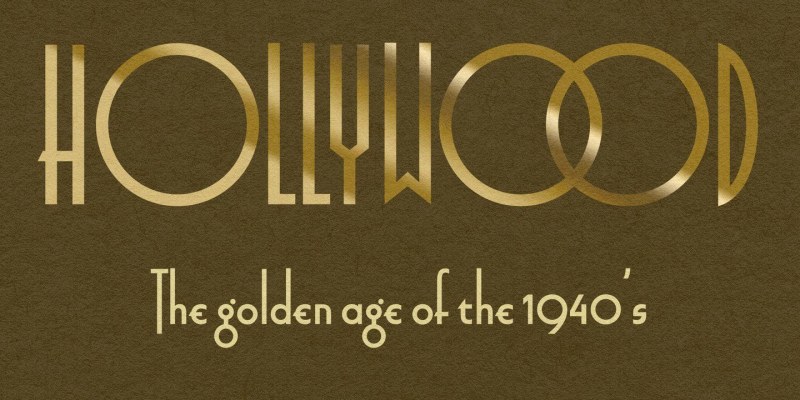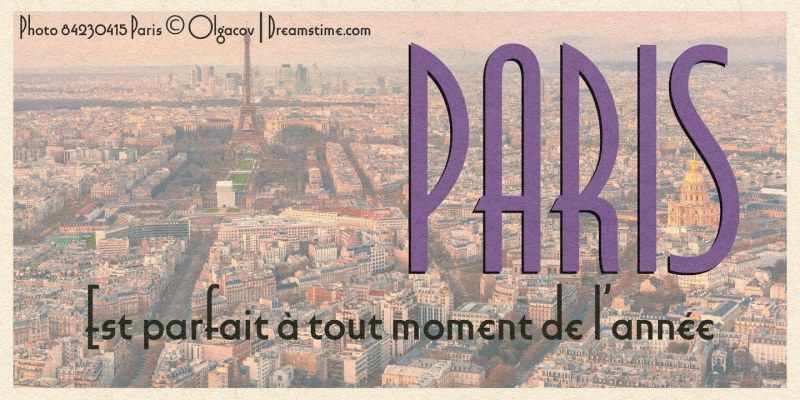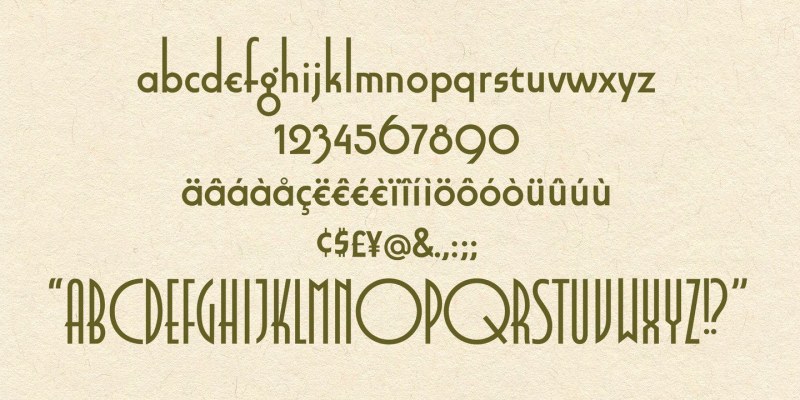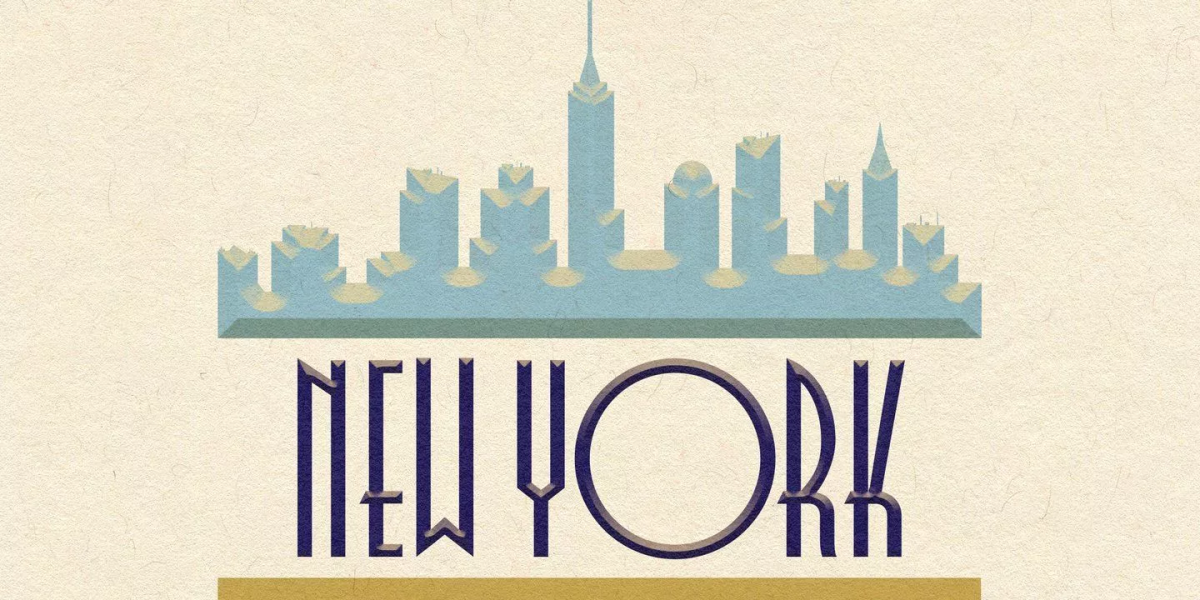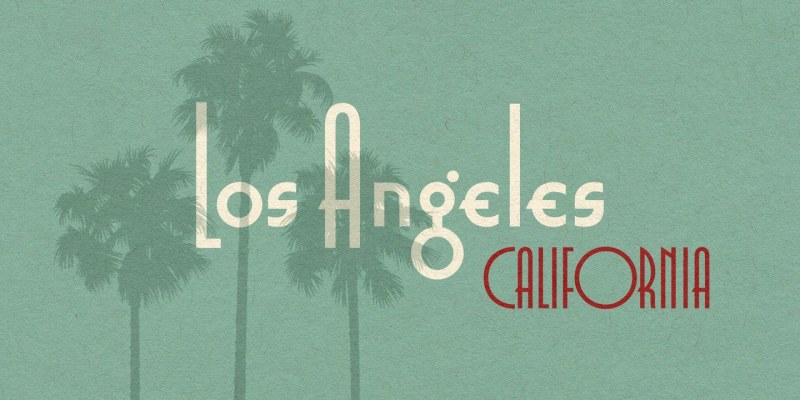
Smart Deco Font
A nostalgic font referencing the 1920’s and 1930’s during the Golden age of Hollywood, art modern and the rise of luxury items. Highly geometric with wild variations in glyph widths that demand attention. Smart Deco is a display font with clean simple lines, tall ascenders and expressive Capitals that descend below the baseline of the lower case letters. The intention is to create a sleek and anti-traditional elegance that symbolizes the sophistication of a by-gone era.
Smart Deco Font is a Modern Fonts font that brings a professional and versatile look to your projects. A nostalgic font referencing the 1920’s and 1930’s during the Golden age of Hollywood, art modern and the rise of luxury items.